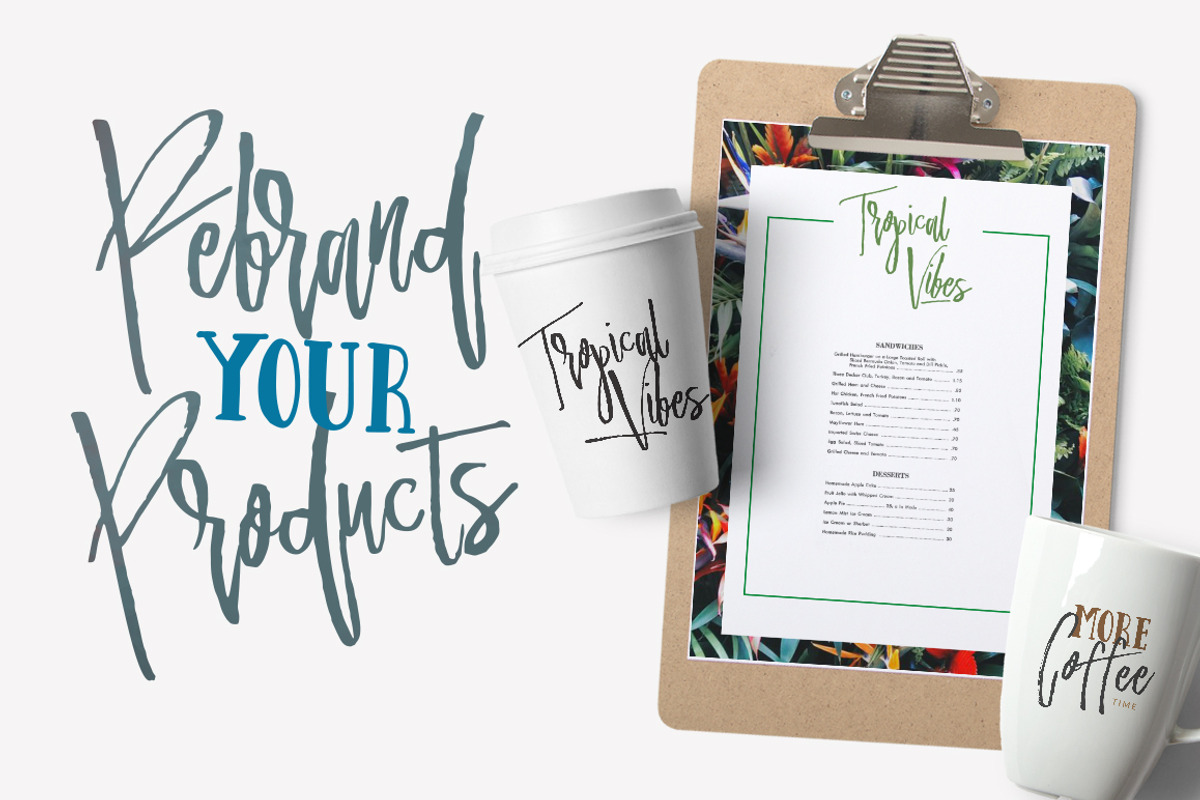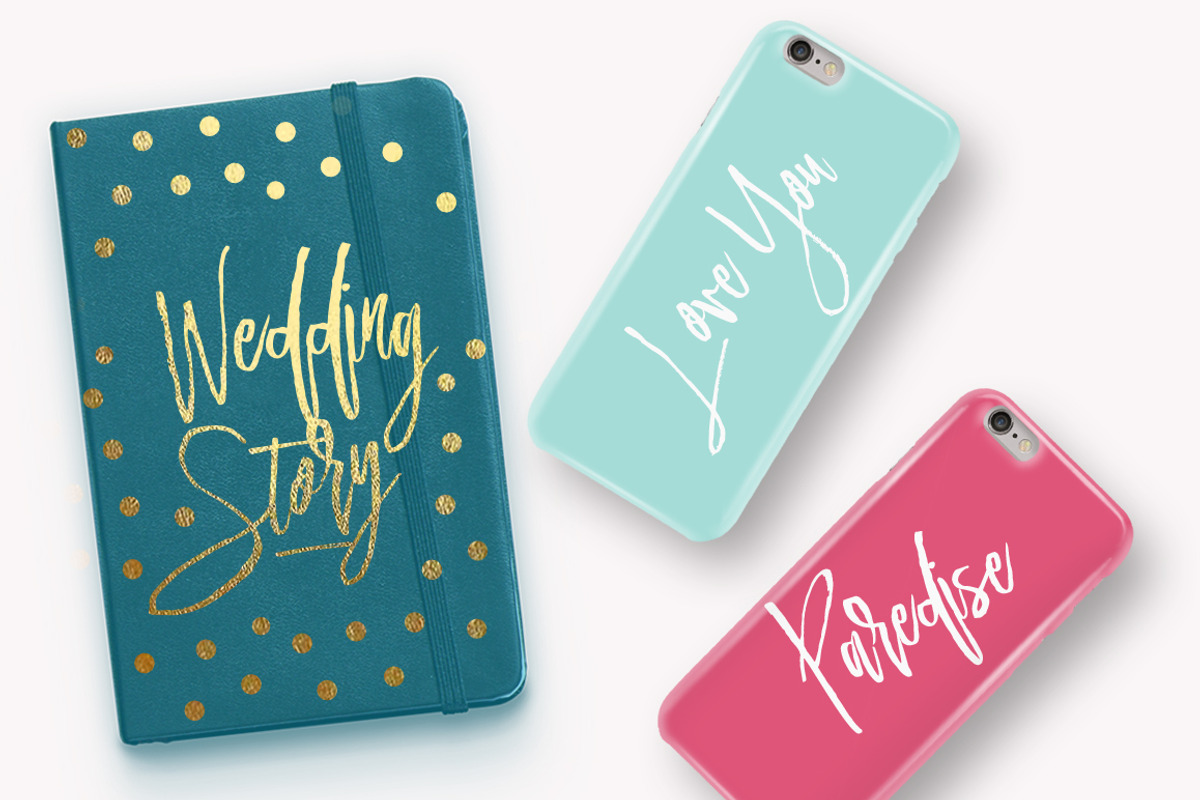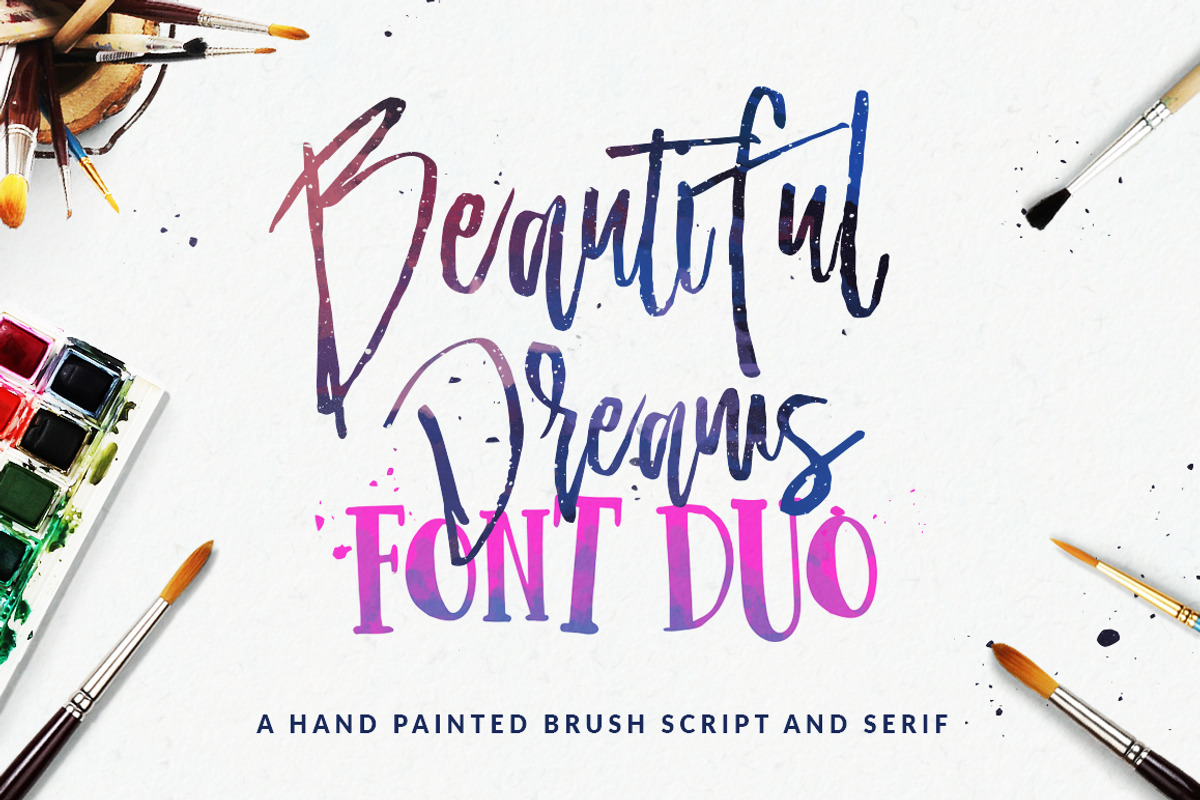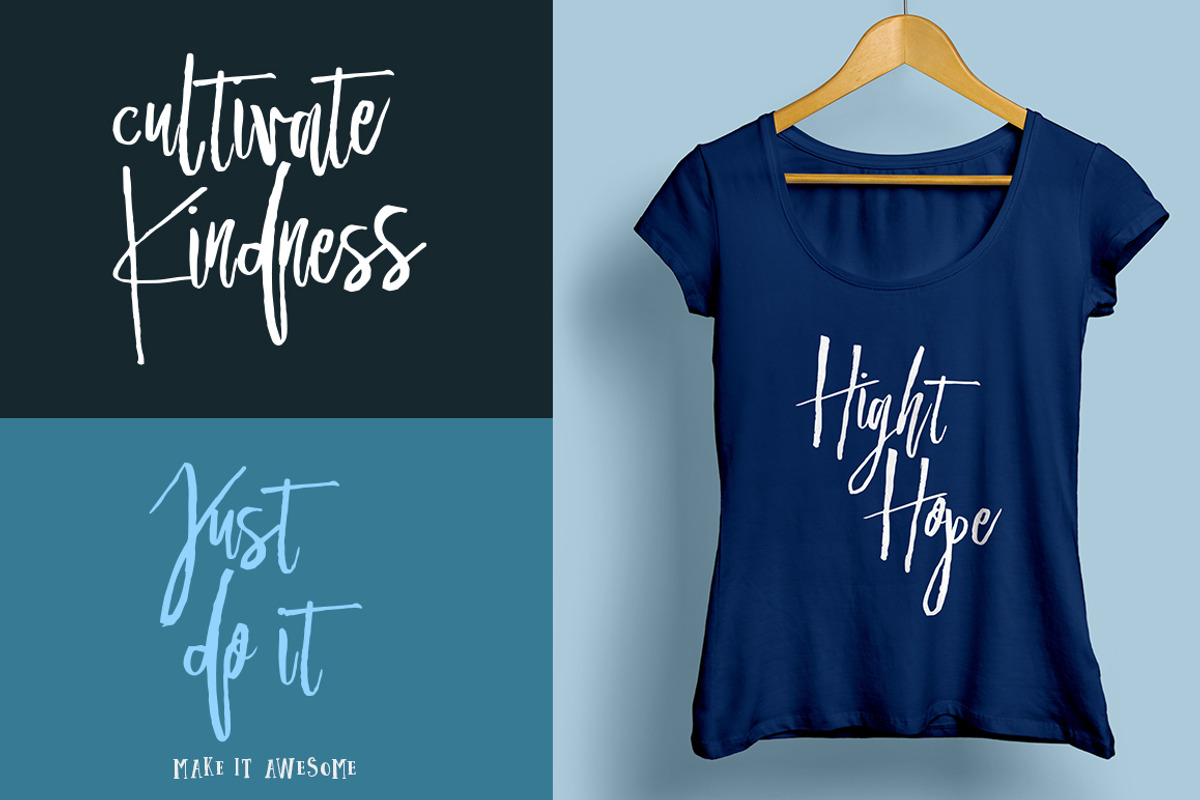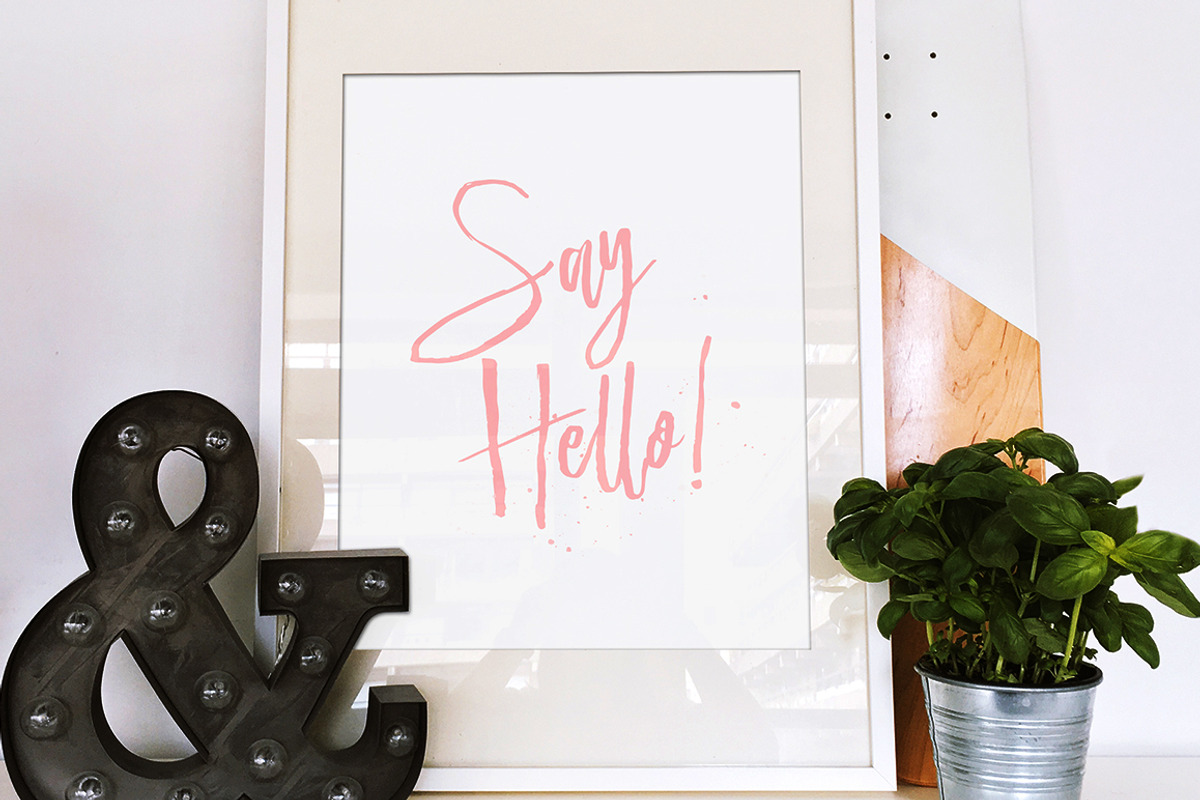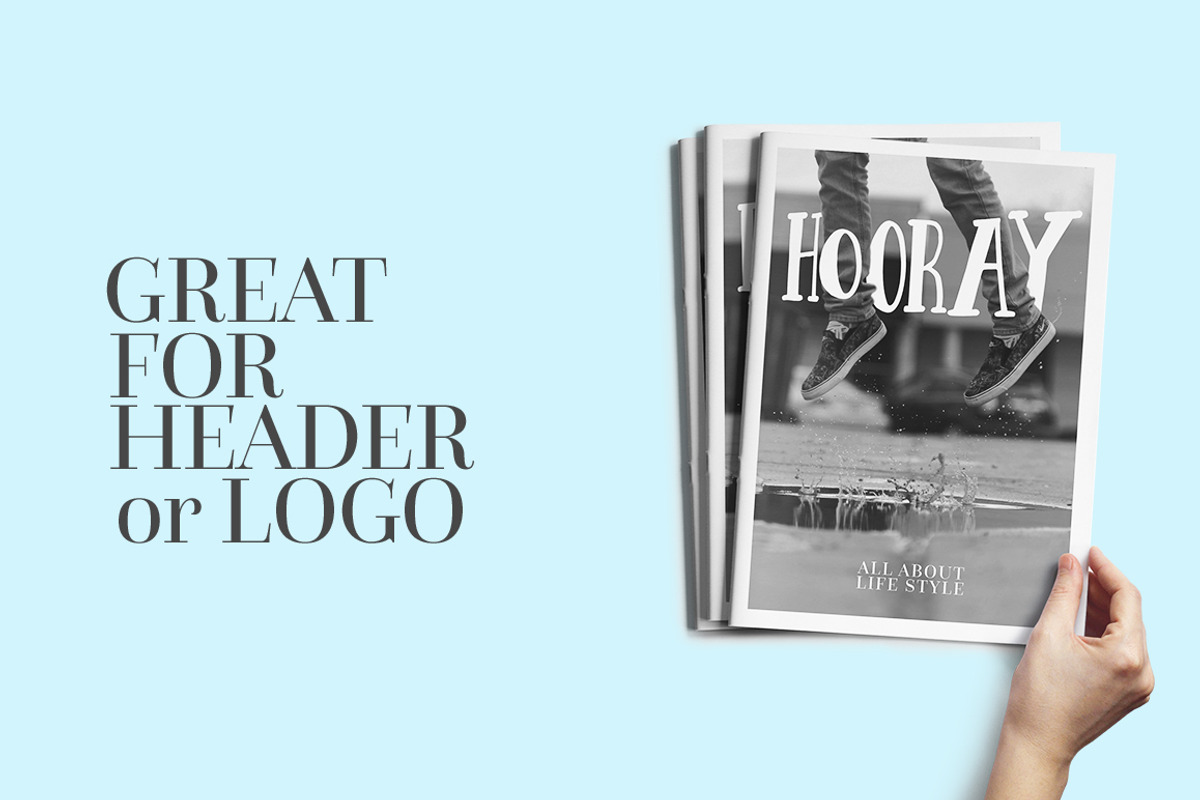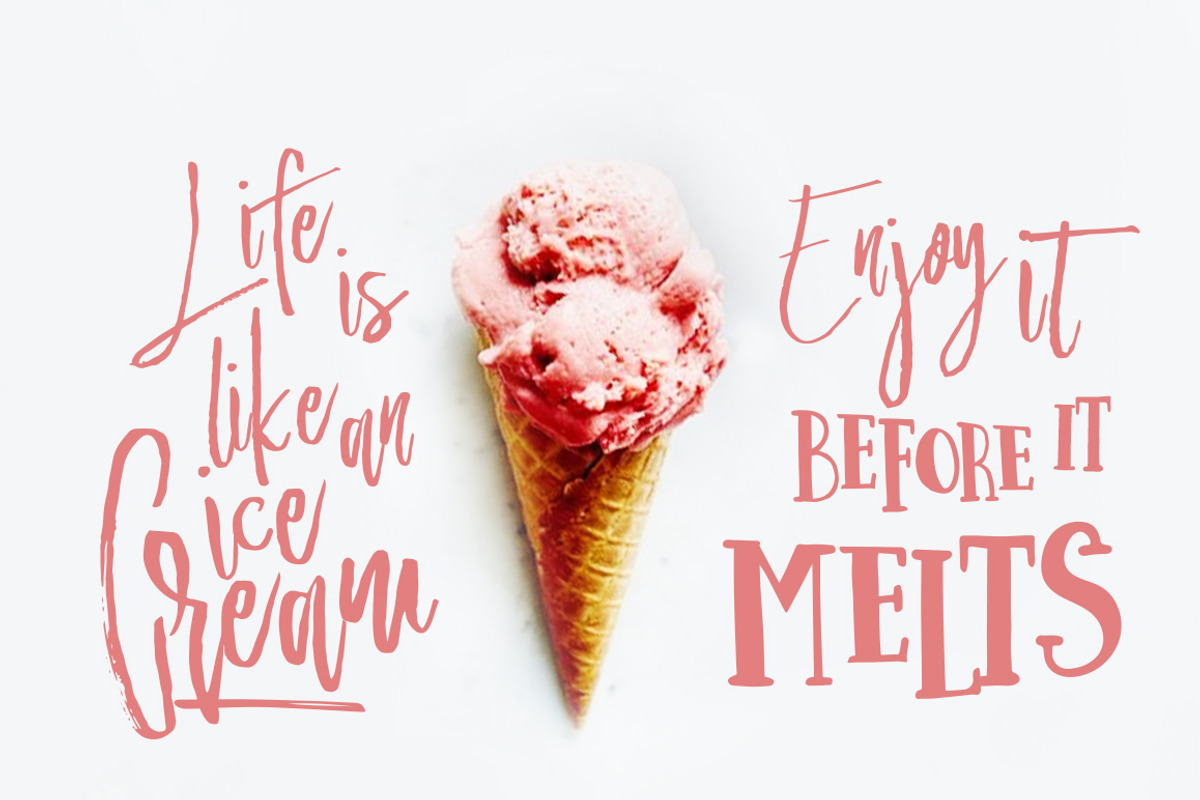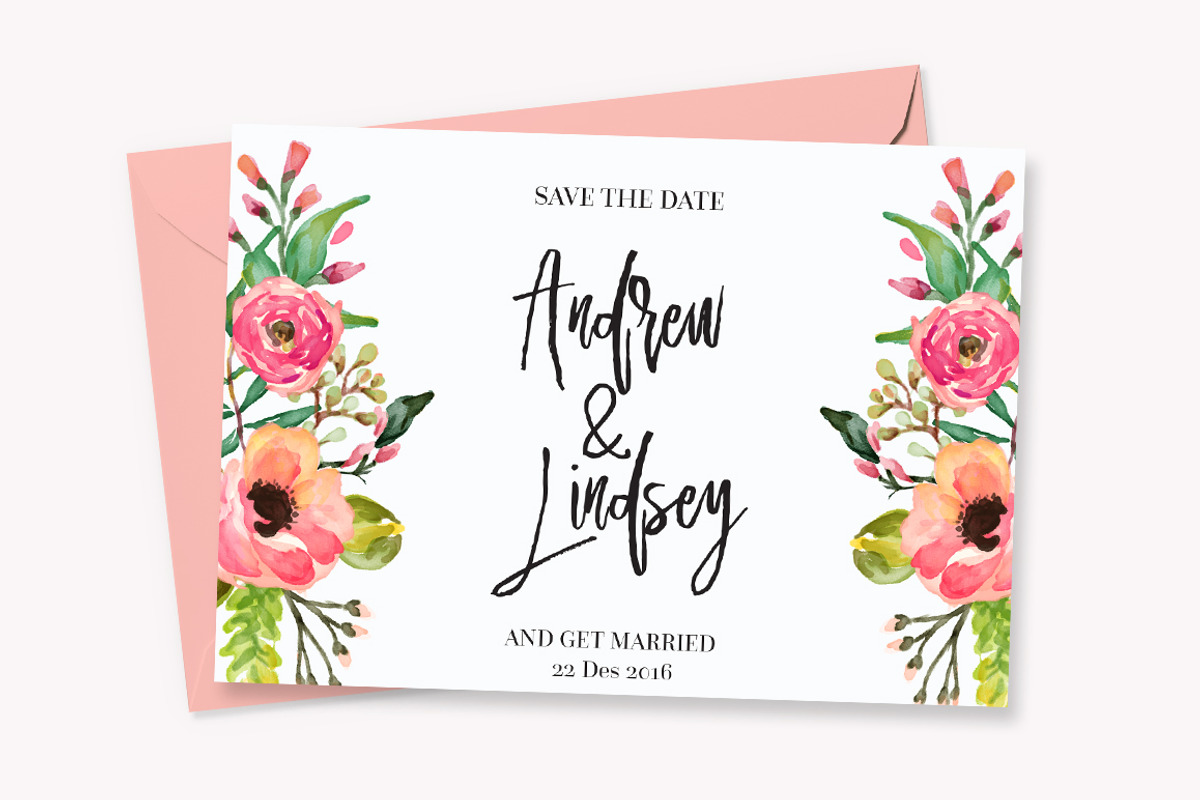
Beautiful Dreams - Font Duo
Beautiful Dreams - Font Duo by Dirtyline Studio is a font selected for branding, posters, packaging, typography.
Why Beautiful Dreams - Font Duo is worth a look
Beautiful Dreams - Font Duo by Dirtyline Studio fits naturally into Branding, posters, packaging, typography.